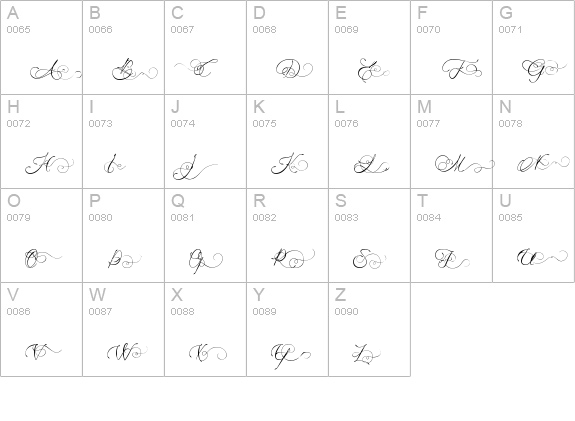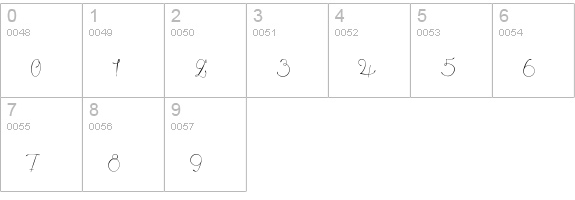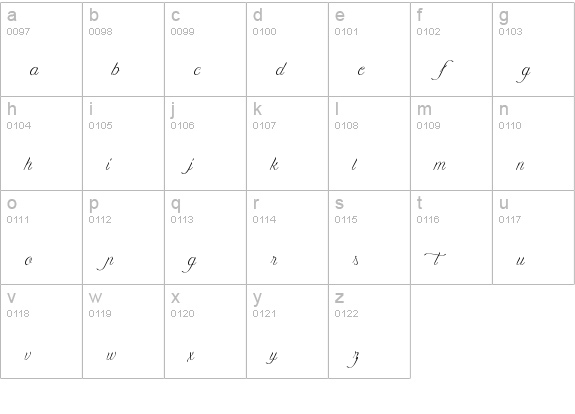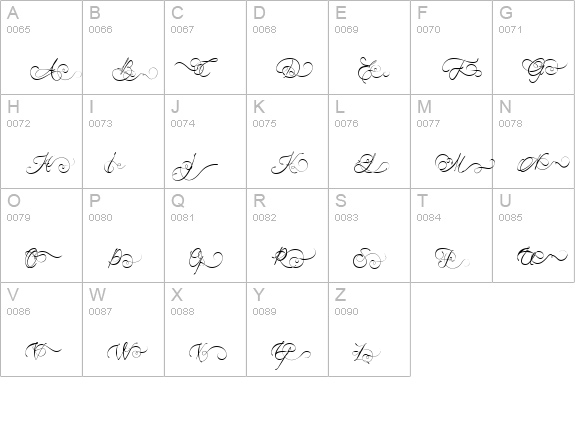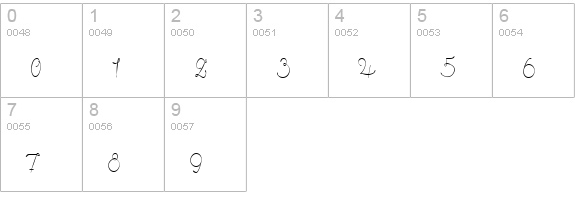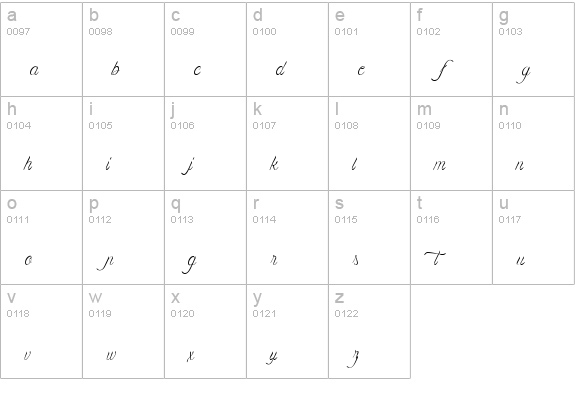
Mademoiselle Camille Font Details
Mademoiselle Camille is a stunningly elegant font that captures the essence of sophistication and grace. With its delicate letterforms and intricate details, this font is perfect for adding a touch of femininity to any design project. Designed with a timeless appeal, Mademoiselle Camille exudes a sense of refined beauty that is sure to captivate the eye. Whether it's used for invitations, wedding stationary, or branding materials, this font brings a touch of class to any project. One of the most appealing aspects of Mademoiselle Camille is that it is freely available to download at FontsMarket.com. This means that designers and creatives alike can access this beautiful font without any cost, allowing for limitless possibilities and endless creativity. The versatility of Mademoiselle Camille is also worth noting. It effortlessly pairs well with both serif and sans-serif fonts, allowing for seamless integration into any design composition. Its gentle curves and flowing lines make it a perfect choice for headlines, titles, and display purposes. The attention to detail in Mademoiselle Camille is truly remarkable. Each glyph is meticulously crafted, resulting in a font that feels handcrafted and unique. The fine strokes and intricate flourishes give it a sense of elegance and refinement that is hard to find elsewhere. Whether you're a professional graphic designer or a DIY enthusiast, Mademoiselle Camille is a font that will not disappoint. Its timeless beauty and freely available download make it a must-have for anyone looking to add a touch of sophistication to their designs. So why wait? Visit FontsMarket.com today and unlock the beauty of Mademoiselle Camille.